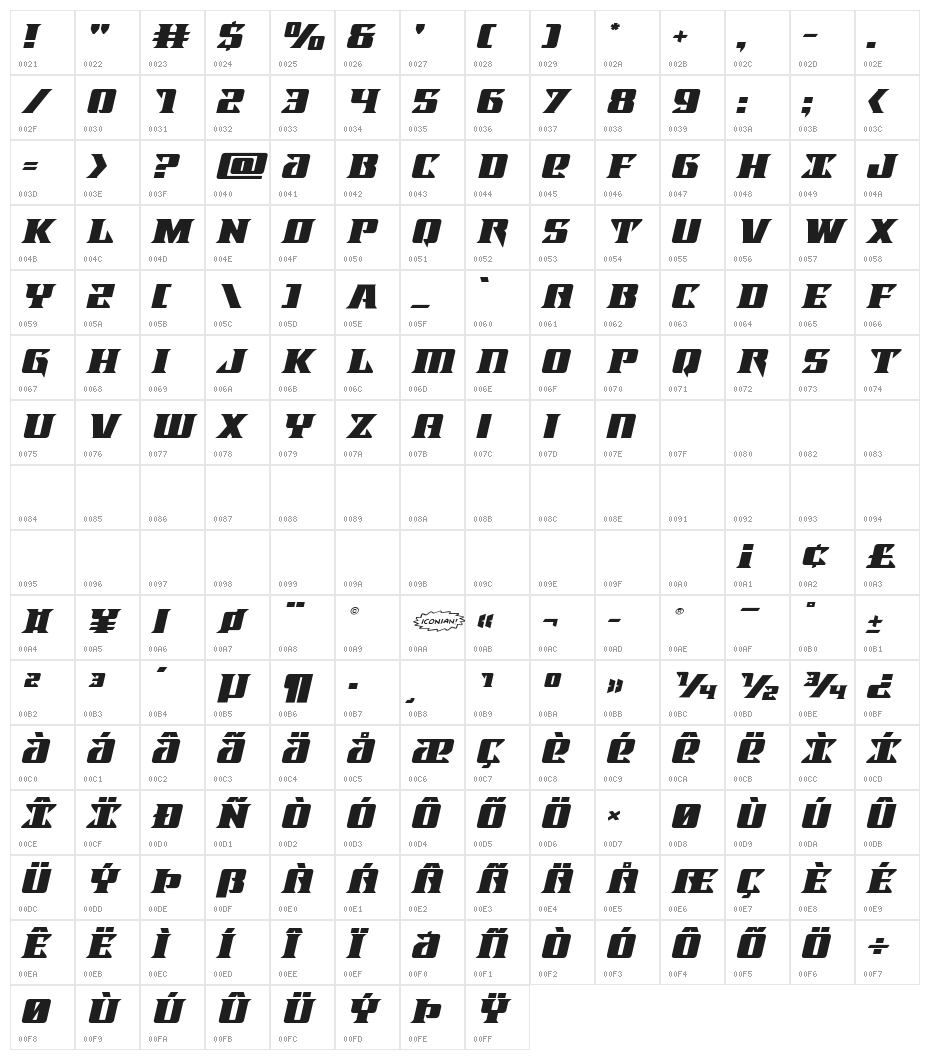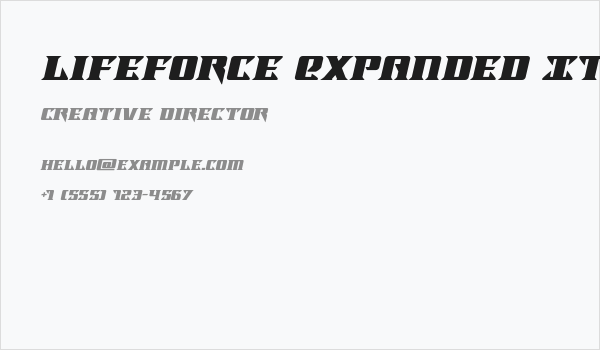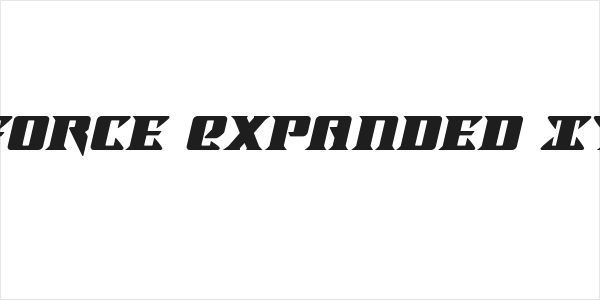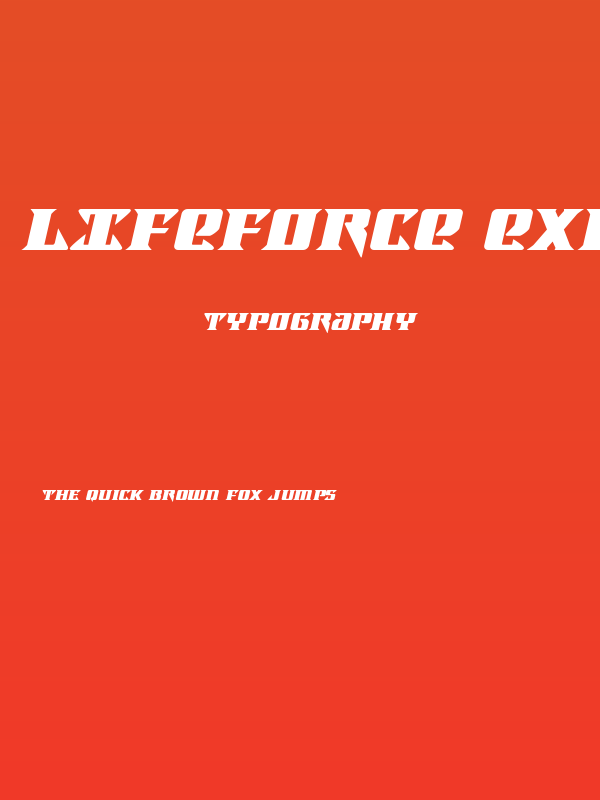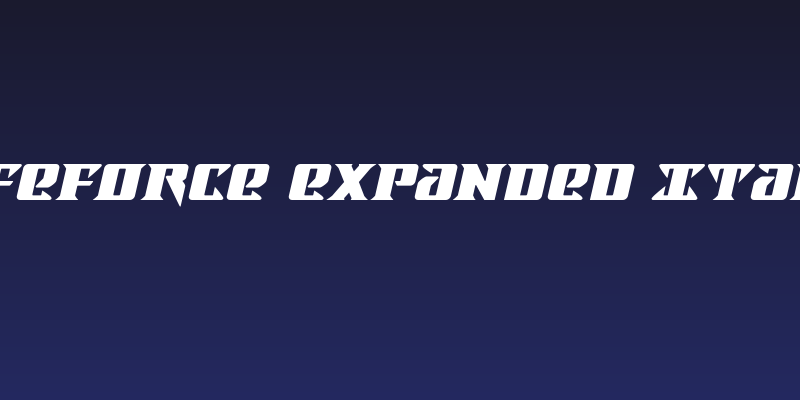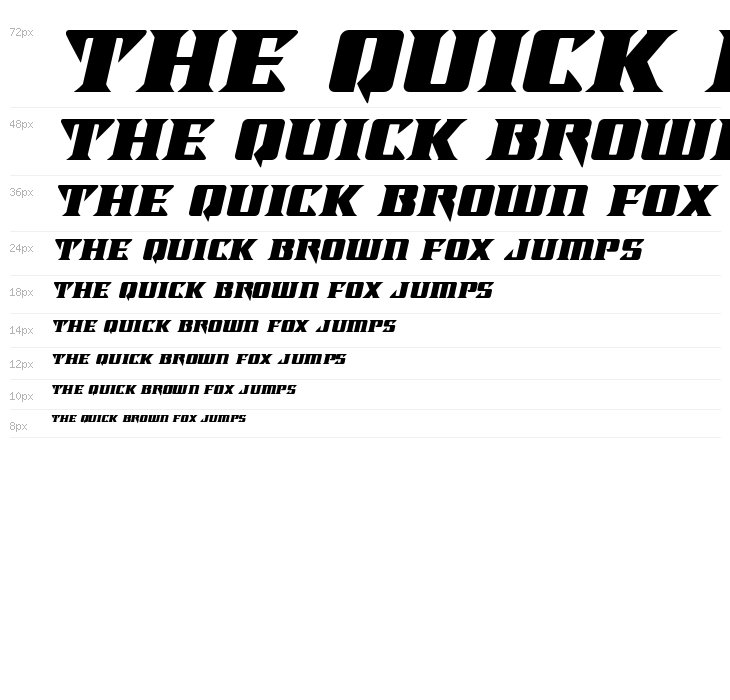
Lifeforce Expanded Italic Font
Lifeforce Expanded Italic Description
This font features a bold and dynamic style with a strong presence. The characters are designed with sharp angles and a slightly italicized slant, giving them a sense of motion and energy. The expanded width of the letters enhances their impact, making them ideal for attention-grabbing headlines or titles. The font maintains a consistent stroke thickness, contributing to its bold appearance, while the spacing between characters is relatively tight, ensuring a cohesive look. The overall style is modern and assertive, suitable for projects that require a powerful and confident typeface.
| Proposed Projects | Ideal for sports branding, action movie posters, video game titles, and dynamic advertising campaigns. |